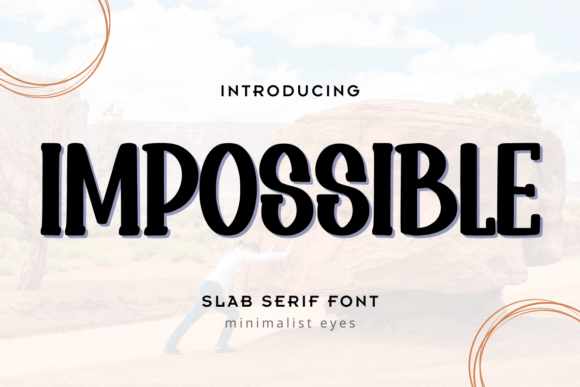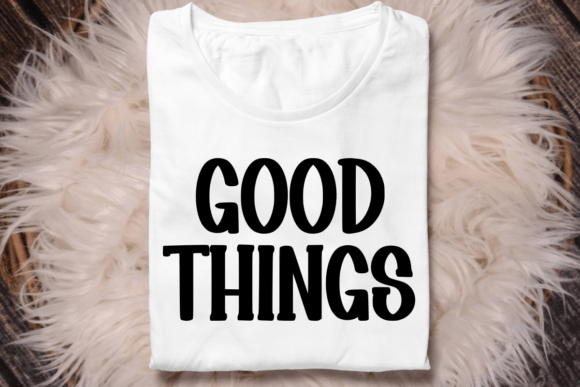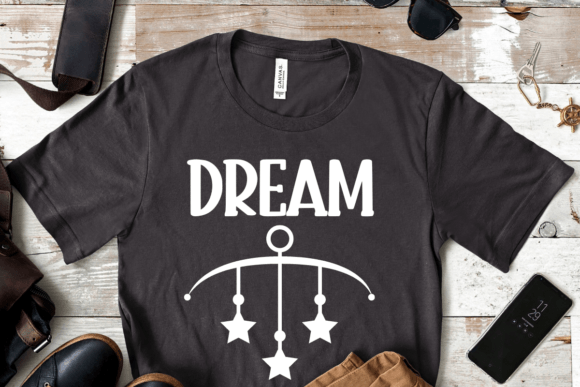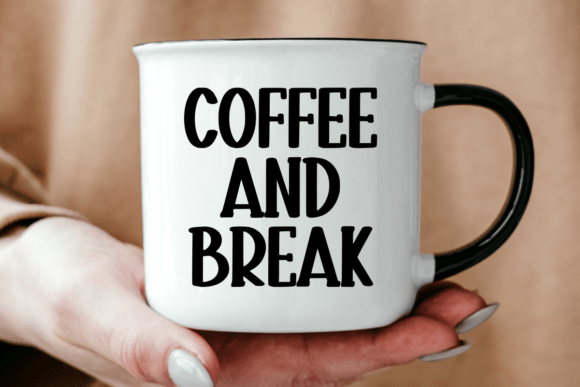
Impossible Font: A Playful Slab Serif for Cute DIY & Branding
About the Impossible Font
Experience the unique personality of Impossible Font, a font designed for impact. Impossible a modern and friendly slab serif font, is a delightful blend of whimsy and clarity. Its playful curves and rounded edges bring a sense of warmth to any design. Perfect for children’s books, invitations, and branding, Impossible radiates a sweet charm that captures attention with its inviting personality.
Impossible Font excels in headlines, short-form text, and branding applications where a friendly, approachable feel is desired. Its charm works well for children’s products, invitations, and logos, adding a touch of playful sophistication. However, its slab-serif structure and relatively large x-height make it less suitable for body text or lengthy paragraphs; readability suffers at smaller sizes.
For optimal visual balance, pair Impossible with a clean sans-serif like Open Sans for body copy or a more geometric sans-serif like Montserrat for a modern contrast. A delicate script font such as Great Vibes could also be used sparingly for accents, enhancing its whimsical nature.
Impossible Font’s core personality is cheerful and approachable, yet sophisticated. It’s best suited for brands targeting younger demographics or those seeking a friendly yet memorable visual identity.
Impossible Font Usage Examples
Impossible Font Example